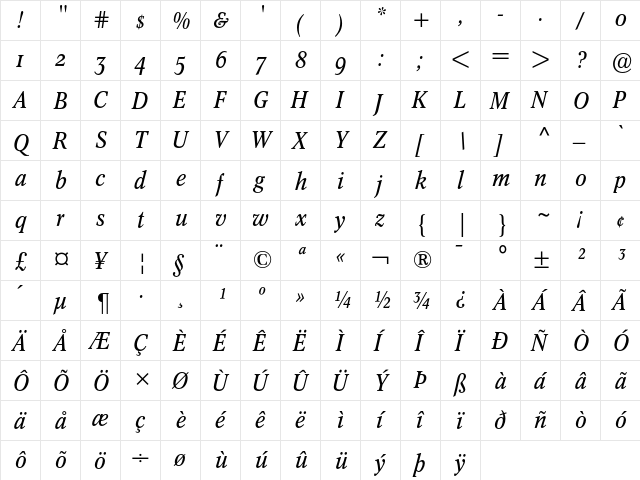
Concorde Nova Italic with Oldstyle Figures
Design Context for Concorde Nova Typeface
Concorde Nova carries the refined structure of traditional serif typography, with bracketed terminals and considered proportions that communicate credibility and craft. The slanted form adds forward momentum and visual energy.
Pro Tip: Set Concorde Nova with slightly loose tracking in headlines to let each letterform's detail read clearly at display sizes.